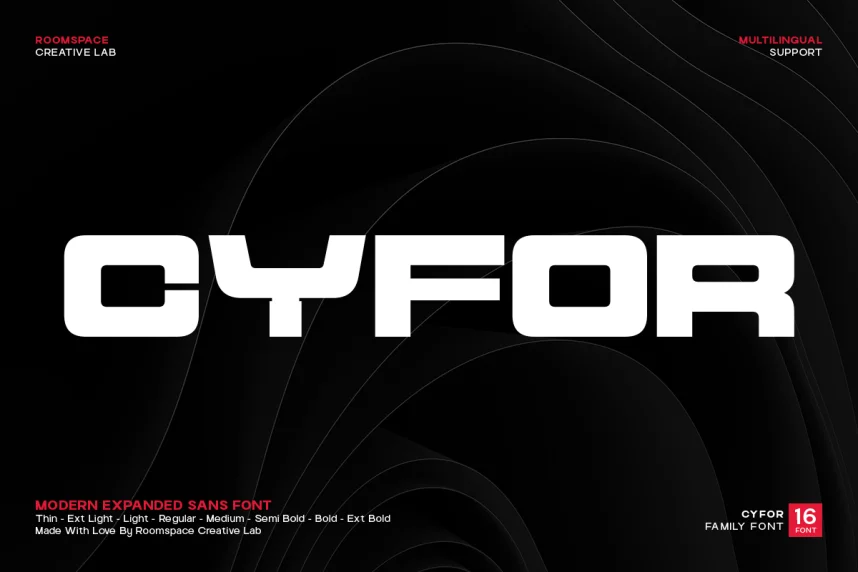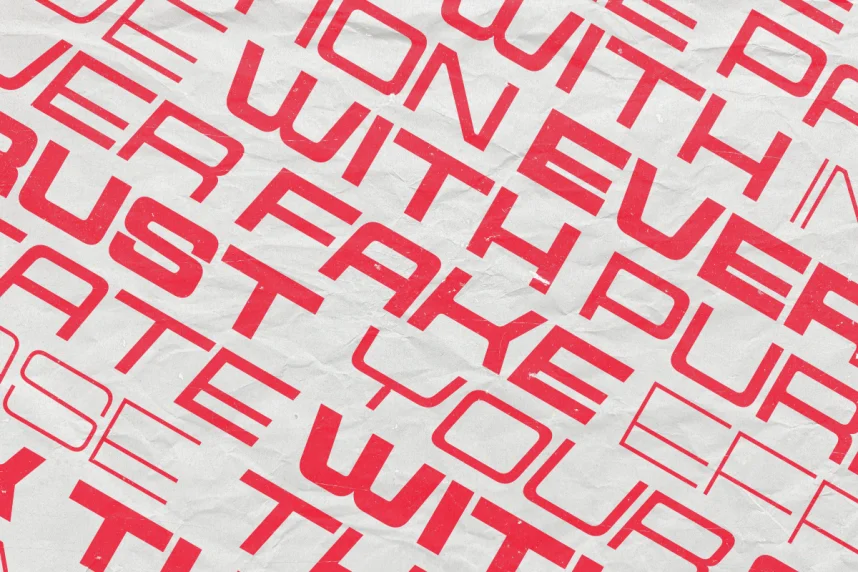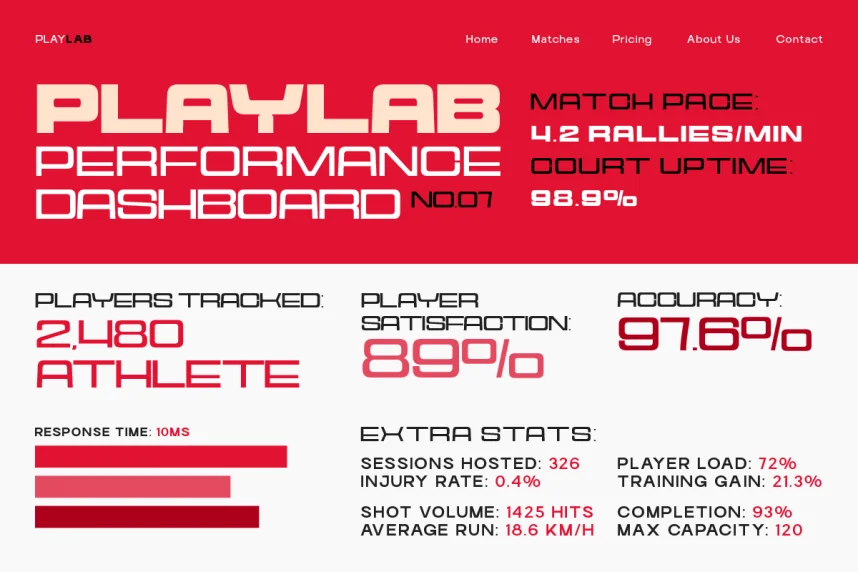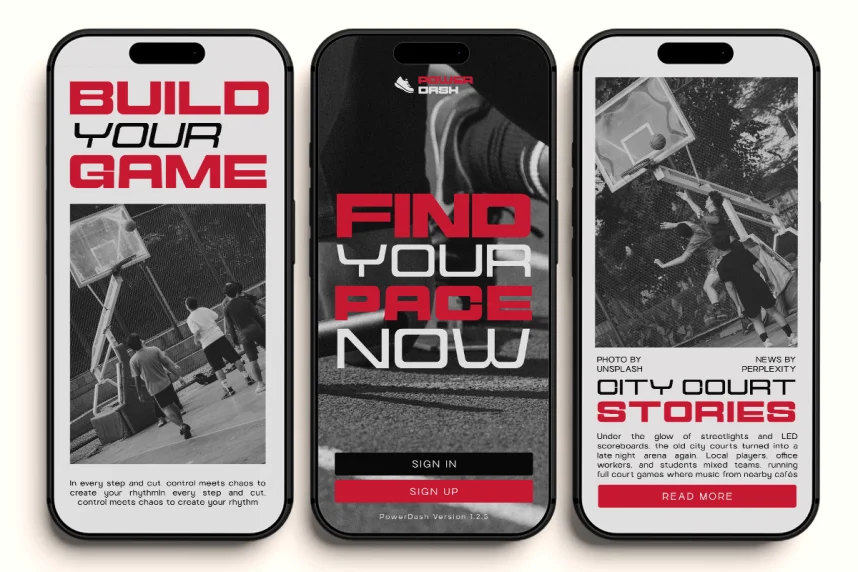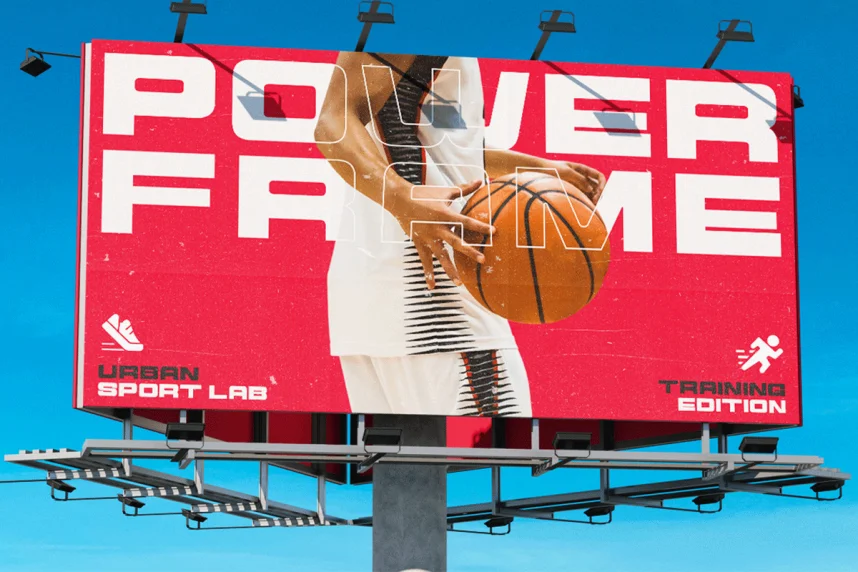
Cyfor Font Family supports structured layouts where precision and clarity matter more than decorative styling. It helps maintain consistency in technical and branding systems.
This font family is a modern sans-serif, featuring geometric construction, stable x-height, and clear counters. These traits improve readability across interfaces and print materials.